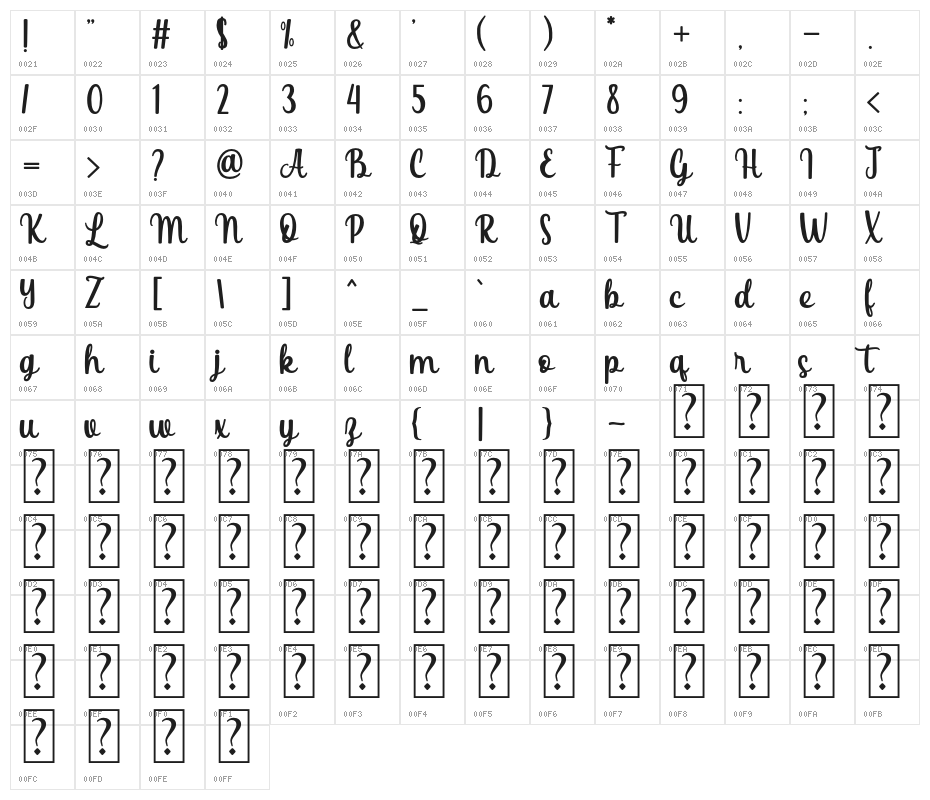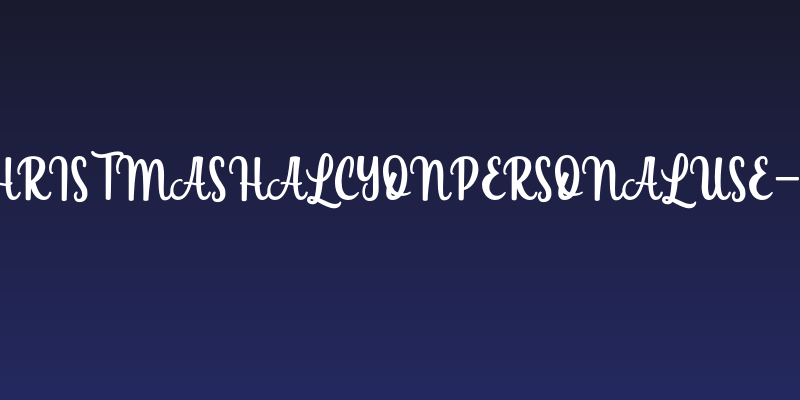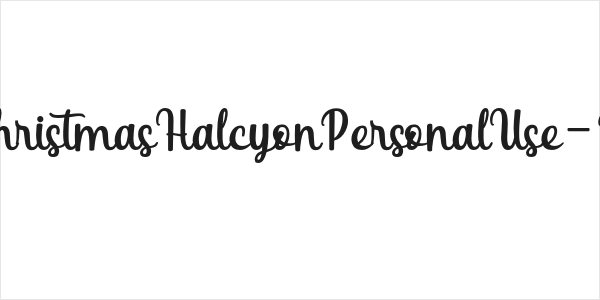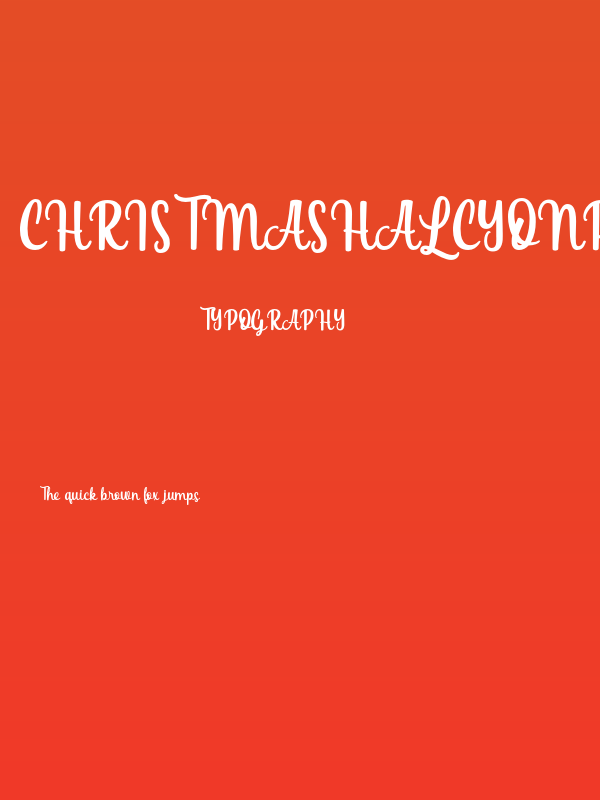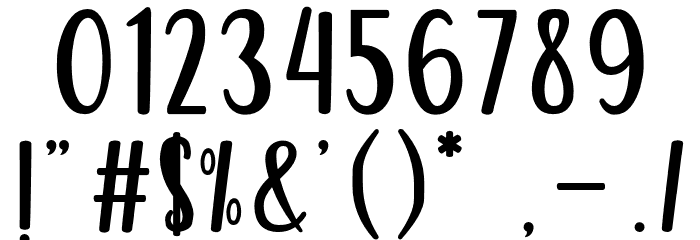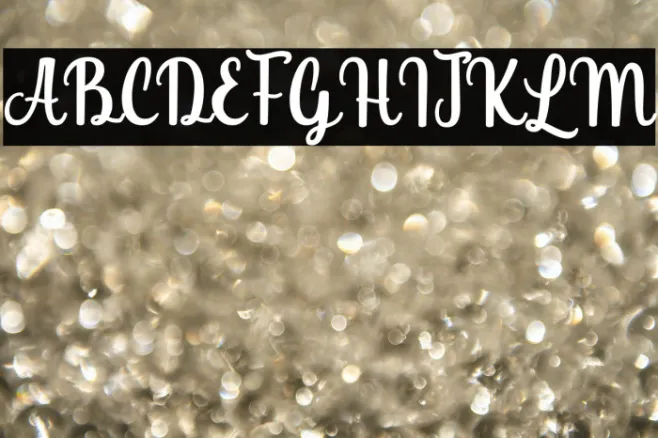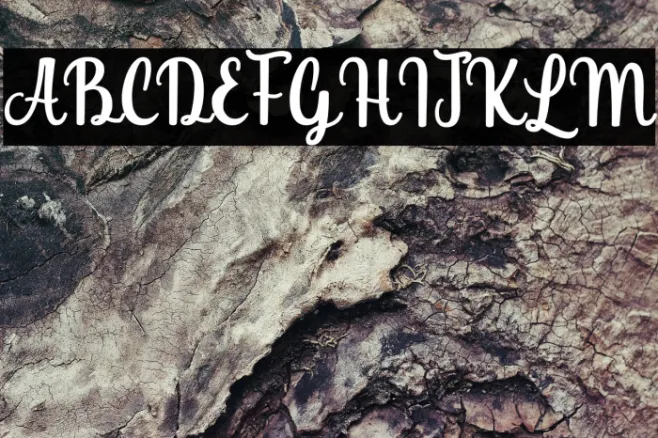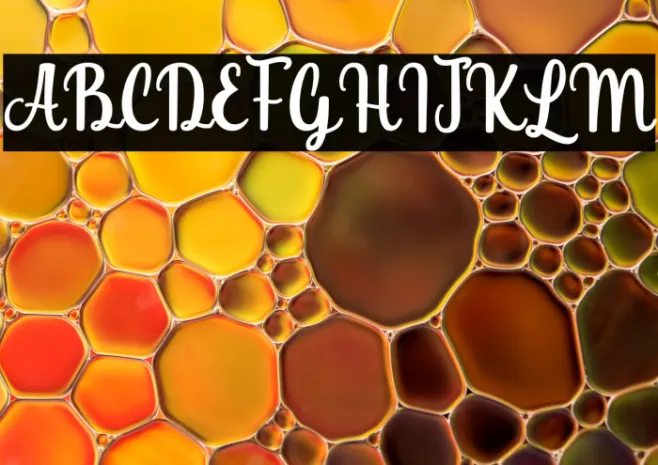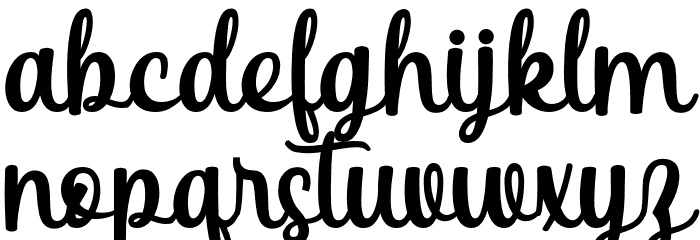
ChristmasHalcyonPersonalUse-R Font
ChristmasHalcyonPersonalUse-R Description
This font features a playful and whimsical script style with a handwritten appearance. The letters are connected smoothly, giving it a flowing and continuous look. The uppercase characters are bold and slightly larger than the lowercase, which are more rounded and compact. The numbers and special characters maintain the same playful style, with consistent stroke thickness throughout. This font exudes a cheerful and festive vibe, making it ideal for creative and decorative projects.
| Proposed Projects | Ideal for holiday cards, festive invitations, playful branding, and decorative signage. |